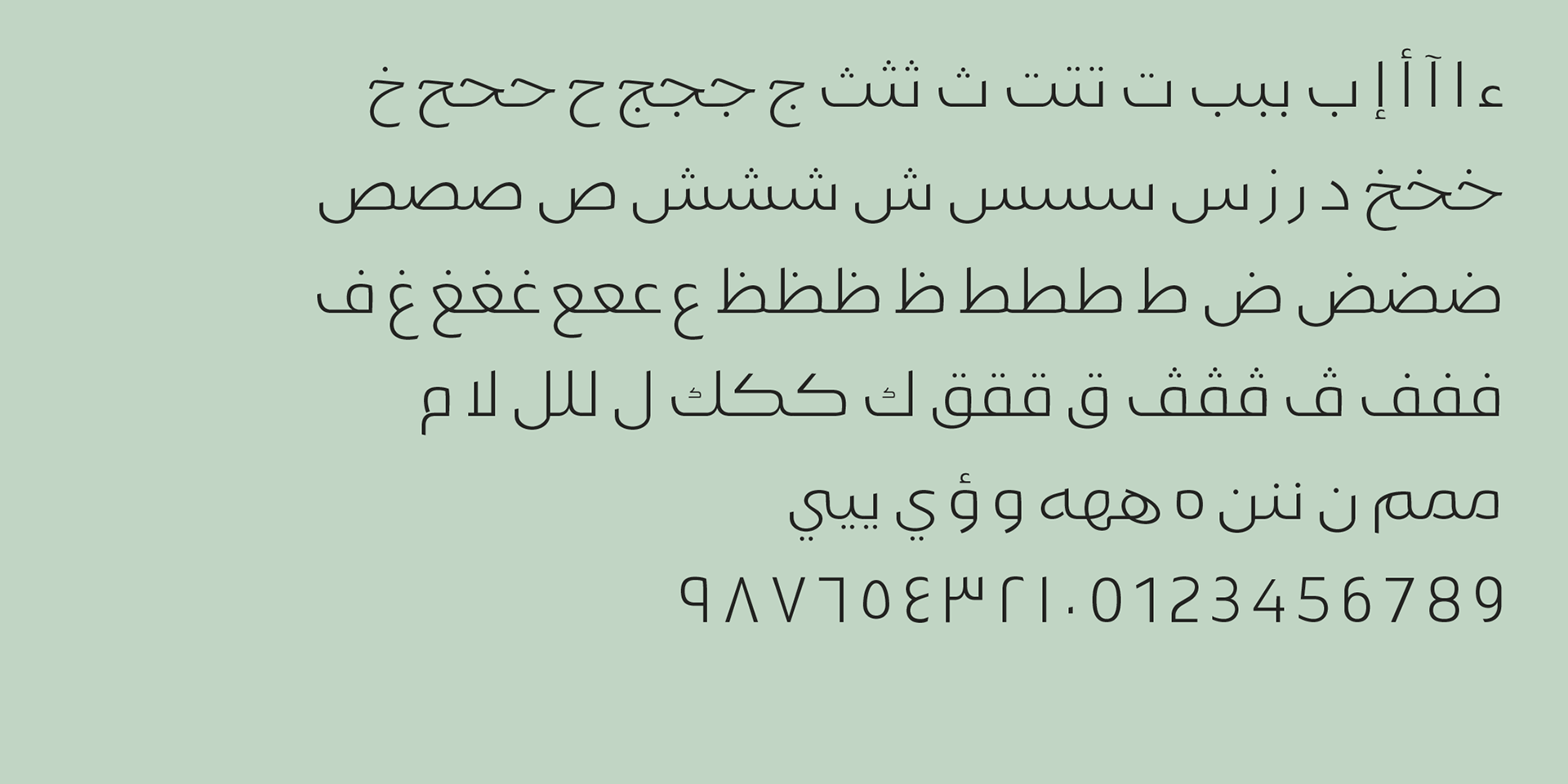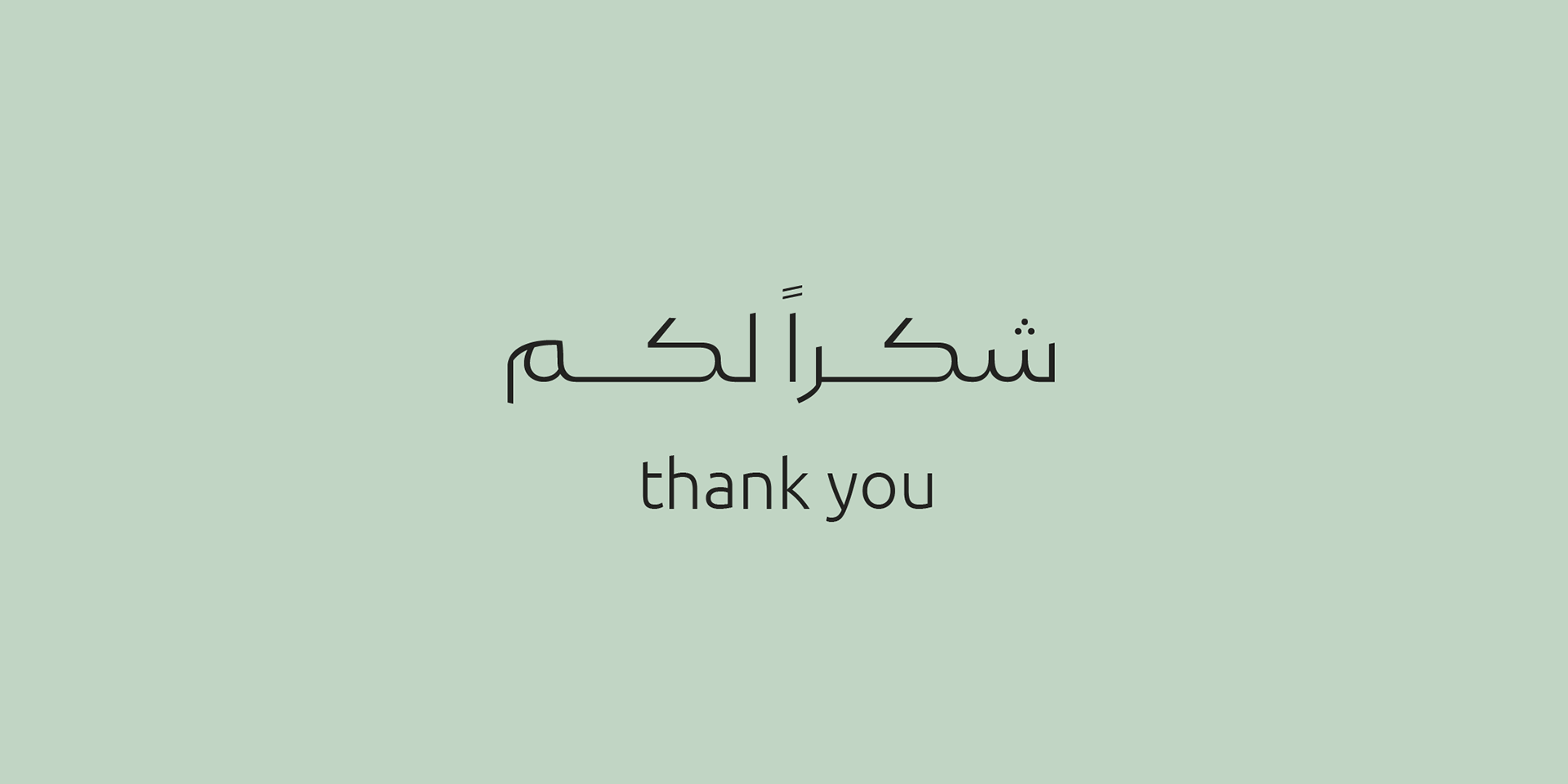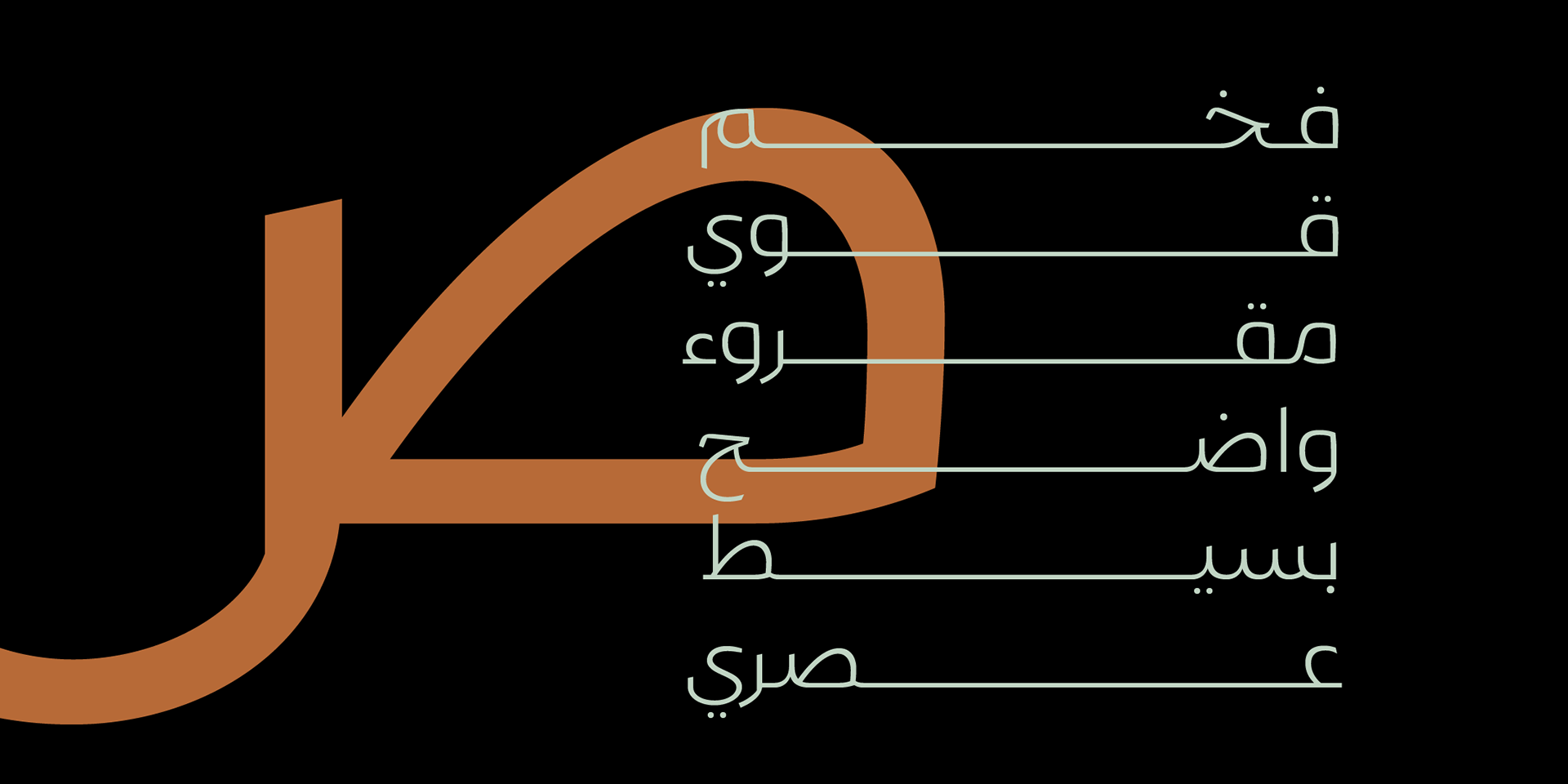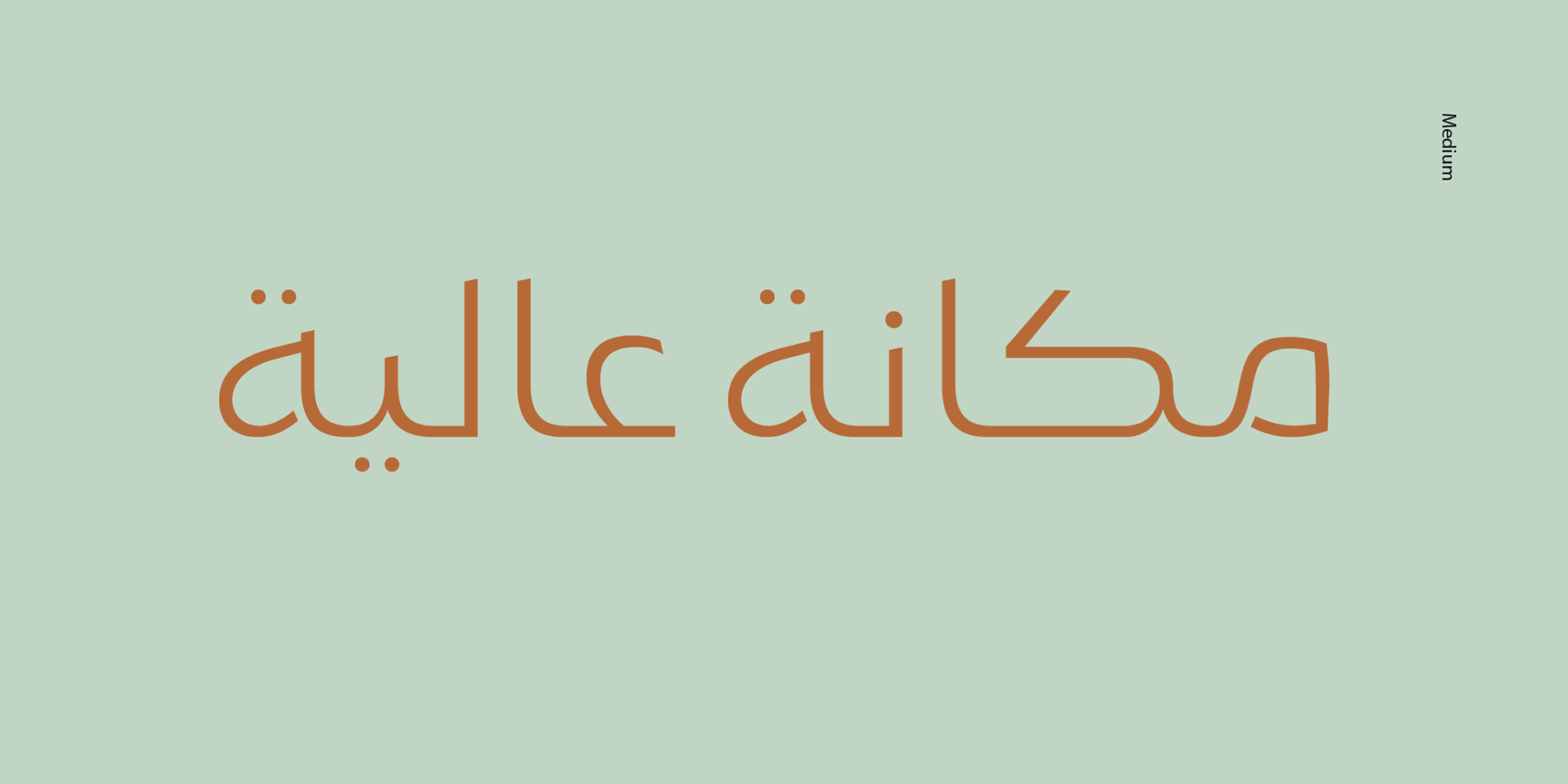
Gamila is a new Arabic font that is inspired by the traditional Naskh style. It is elegant and versatile, with five different weights ranging from light to bold. This font is perfect for a wide range of design projects, including book covers, brochures, posters, and more. The Naskh style is known for its legibility and readability, making Gamila a great choice for long-form text. Whether you are working on a formal document or a creative project, Gamila is sure to impress with its refined and sophisticated appearance.
Gamila Arabic typeface - خط جميلة ارابيك
Gamila is a new Arabic font that is inspired by the traditional Naskh style. It is elegant and versatile, with five different weights ranging from light to bold. This font is perfect for a wide range of design projects, including book covers, brochures, posters, and more. The Naskh style is known for its legibility and readability, making Gamila a great choice for long-form text. Whether you are working on a formal document or a creative project, Gamila is sure to impress with its refined and sophisticated appearance.